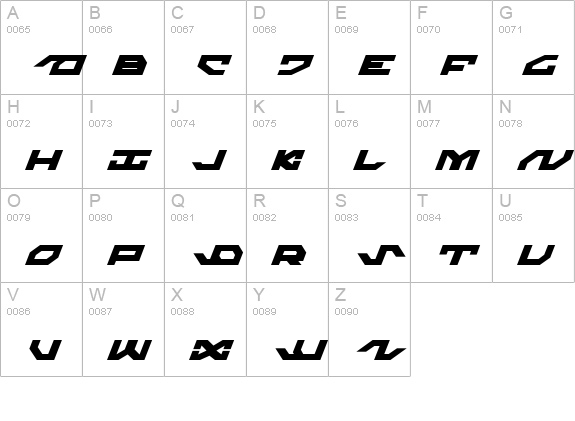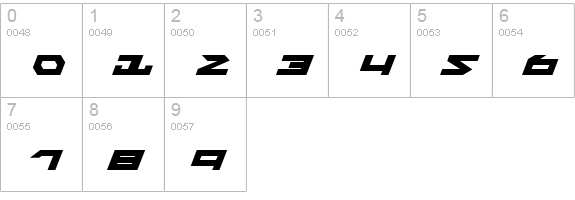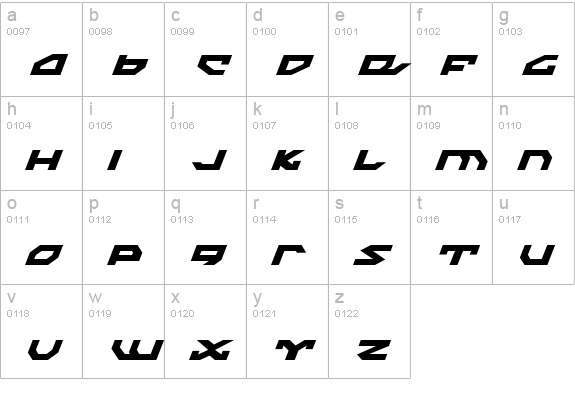
Nightrunner Italic is a distinctive, italic variant in the Nightrunner typeface family \xE2\x80\x94 well suited to design and typography projects.
Nightrunner Italic font is a sleek and sophisticated typeface that exudes elegance and modernity. Its slanted design adds a dynamic touch to any project, making it perfect for creating eye-catching headlines or stylish branding materials. The sharp, clean lines of Nightrunner Italic font convey a sense of professionalism and refinement, making it an ideal choice for projects that require a touch of sophistication. Best of all, Nightrunner Italic font is free and readily available for download at FontsMarket.com. Whether you're a designer looking to add a touch of flair to your work or a business owner in need of a stylish font for your marketing materials, Nightrunner Italic font is the perfect choice. Download it today and elevate your designs with this stunning typeface.